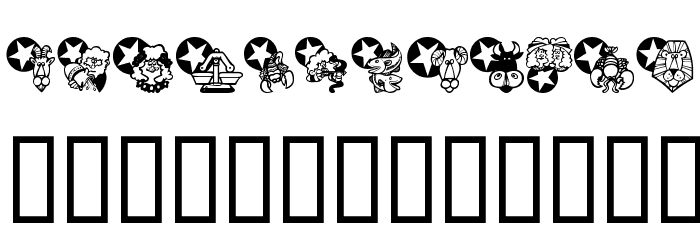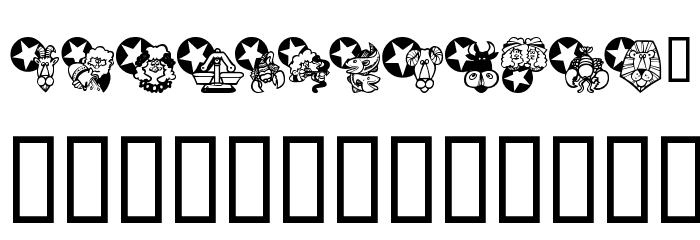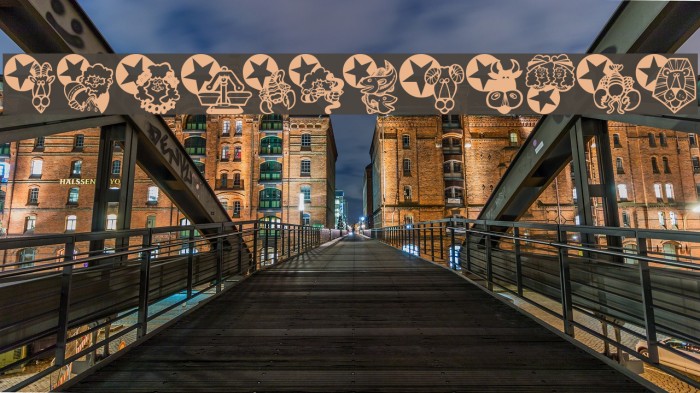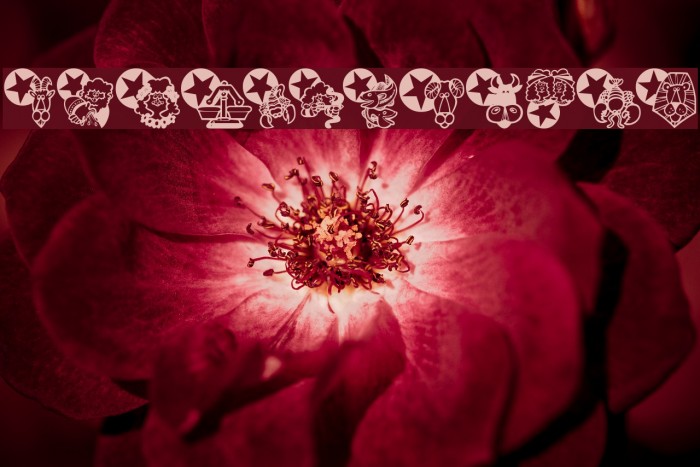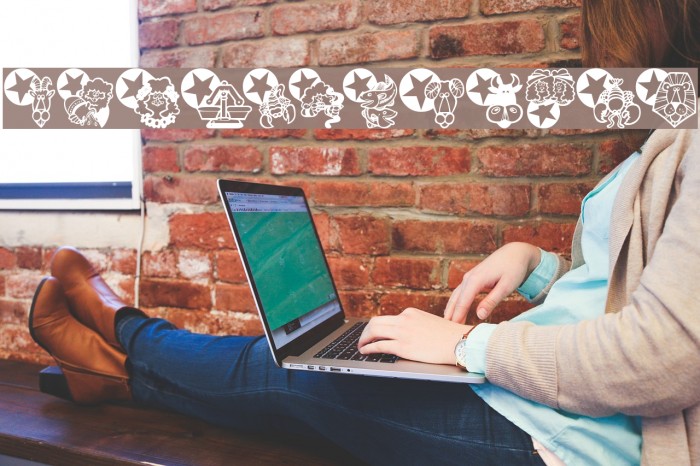
KR New Astro Font
This is a decorative font featuring zodiac-themed illustrations. Each character is represented by a unique symbol that incorporates elements of astrology, such as stars and zodiac signs. The style is playful and whimsical, making it ideal for projects that require a touch of mysticism or celestial charm. The characters are enclosed in circular or shield-like shapes, adding a cohesive and structured appearance to the overall design.
A decorative zodiac-themed font with playful and whimsical illustrations.
- Proposed Projects: Ideal for astrology blogs, horoscope graphics, themed party invitations, or any project needing a celestial or mystical touch.
- Use Case: Logos, Headlines, Themed Invitations